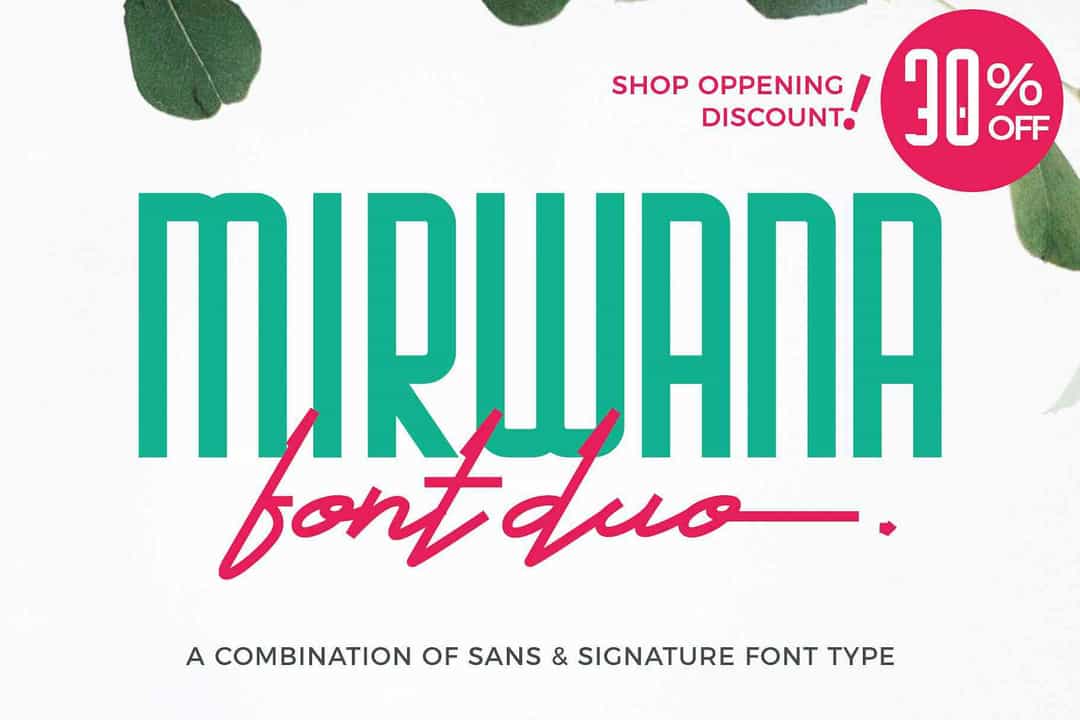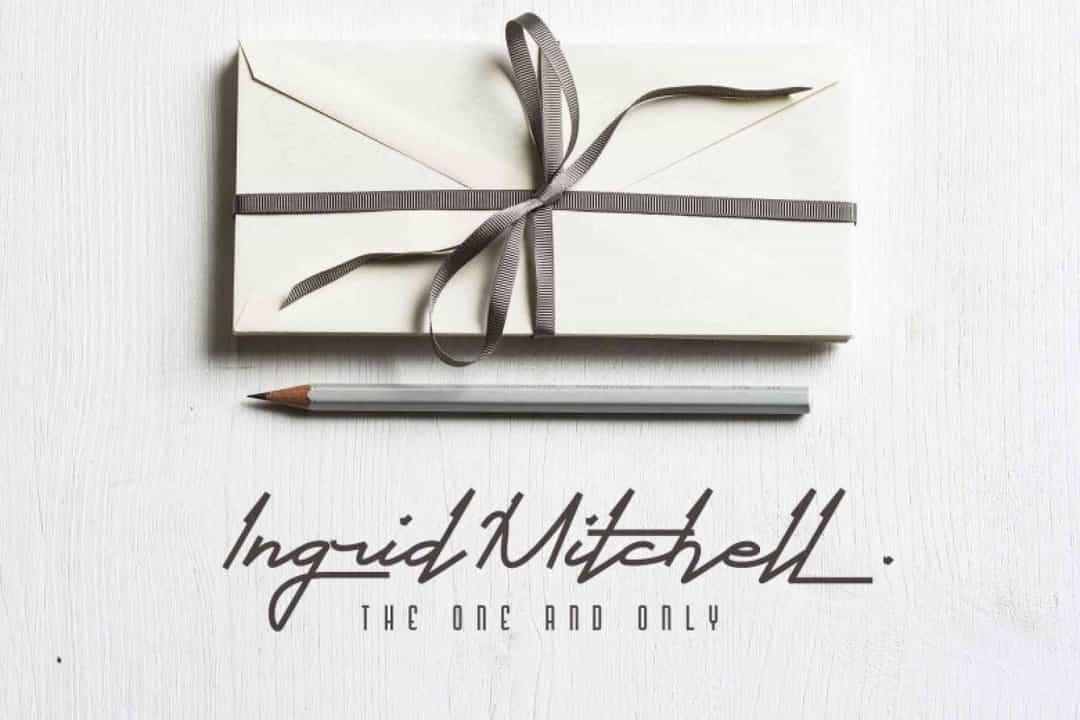
Discover Mirwana Font Family, part of the Sans Serif collection—a versatile and unique font perfect for adding a personal touch to your projects. Download it for free and enjoy crafting designs with style, from invitations to social media posts. This font is available exclusively for personal use, giving you the freedom to create without limits. Unlock your creativity with Mirwana Font Family today!